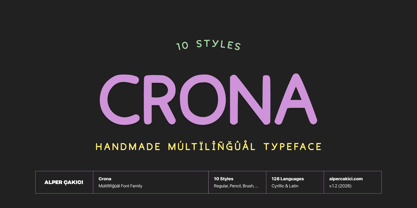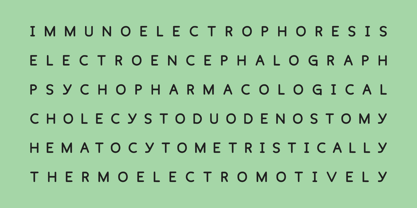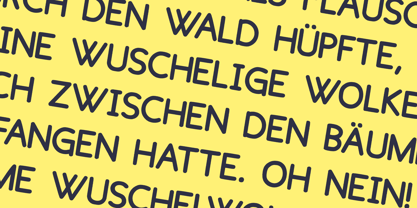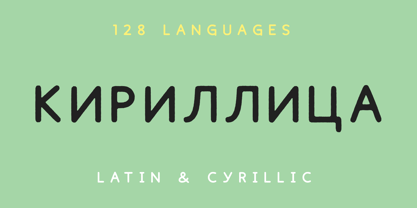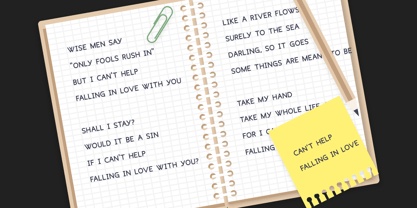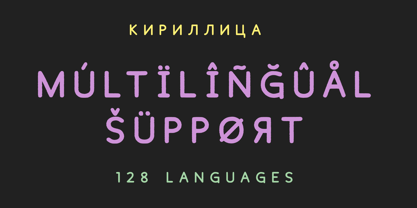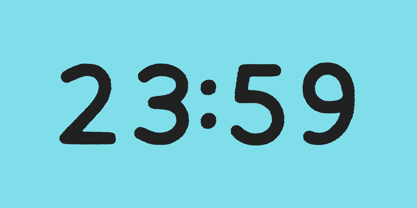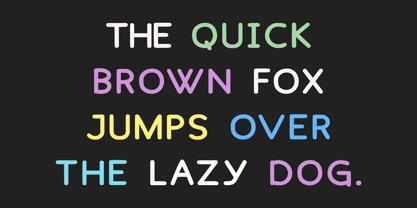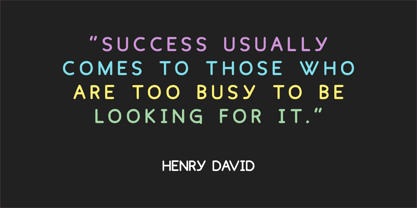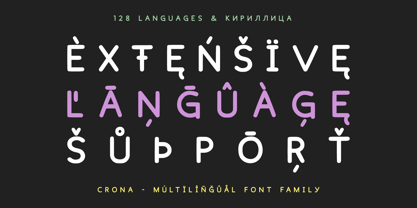
Crona
Die Schriftfamilie Crona wurde von Alper Çakıcı entworfen und von AlperCakici veröffentlicht. Crona enthält 1 Stile.
Crona is a modern, versatile font with excellent kerning, making it ideal for both digital and print use. It features full support for the Cyrillic language, allowing for seamless multilingual communication. Crona's unique design combines classic proportions with a contemporary feel, making it stand out from other same categories fonts.